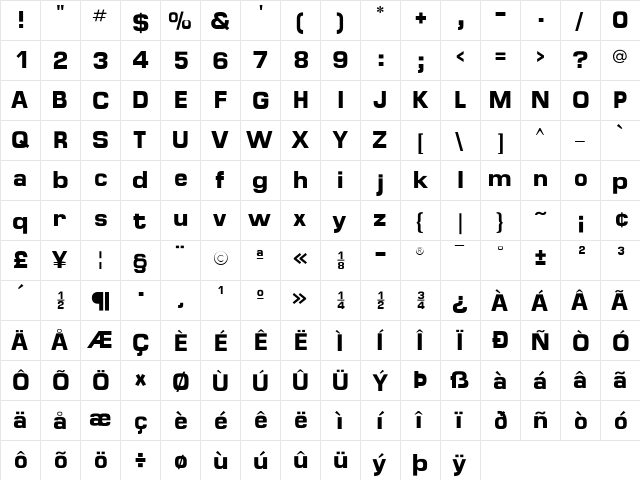
MicroFLF Regular
Design Context for MicroFLF Typeface
MicroFLF is a composed and adaptable typeface that performs quietly and consistently across a wide range of design contexts.
Pro Tip: Pair MicroFLF with a font of contrasting weight or personality to build a more expressive typographic hierarchy.